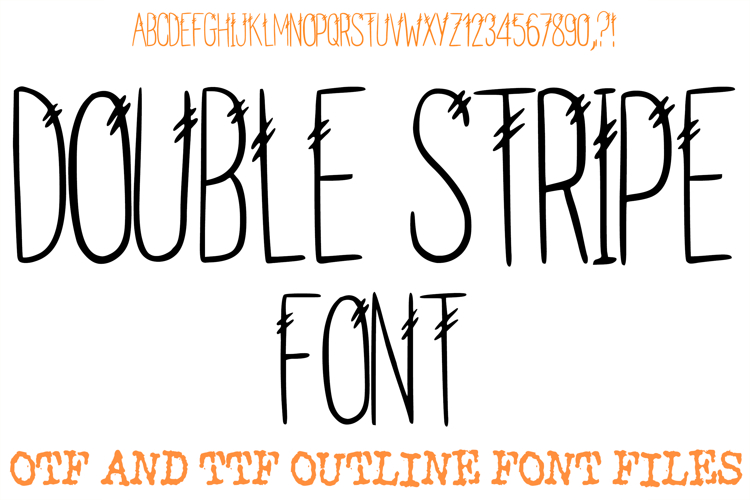
Double Stripe Alphabet Lettering Font Thin ABC OTF
Bring a clean, edgy, and minimalist aesthetic to your typography with this uniquely stylized display font. Featuring an ultra-thin, elongated structure, each uppercase letter, number, and punctuation mark is accented with distinct double-slash hatch marks along the vertical lines. The hand-drawn linework combines a tall, condensed display layout with a subtle sketchy energy, giving the typeface a modern, alternative look that instantly grabs attention.
Ideal For Creative Assets & Crafting
Custom Merchandise: Perfect for creating standout typography layouts on graphic t-shirts, hoodies, and minimalist streetwear.
Stickers & Decals: Design clean, linear vinyl decals for laptops, hydroflasks, travel notebooks, and phone cases.
Event Stationery: Great for modern party invitations, Halloween decor layouts, concert flyers, or edgy event signage.
Contemporary Branding: Elevate logos, social media templates, and sleek packaging designs for alternative fashion brands, indie music labels, or creative studios.